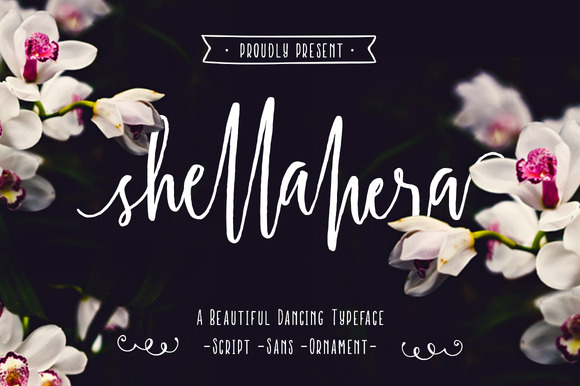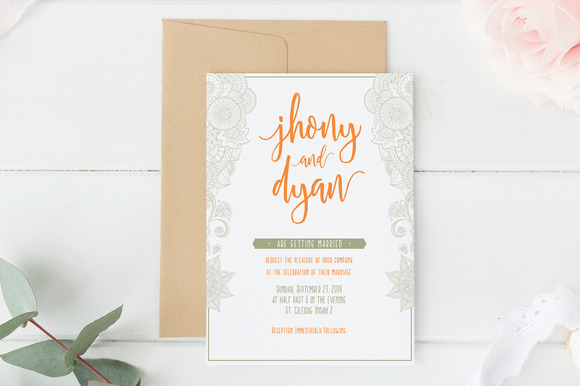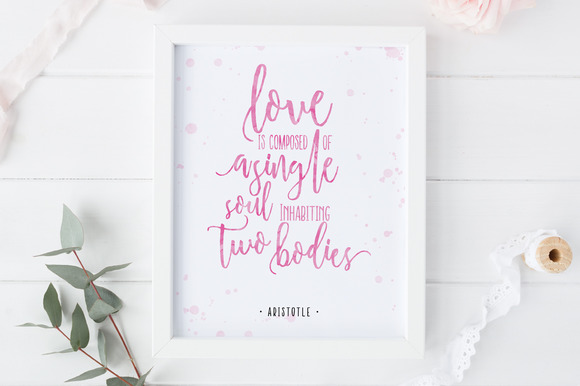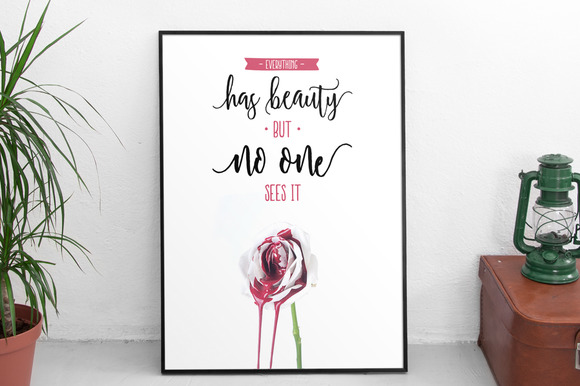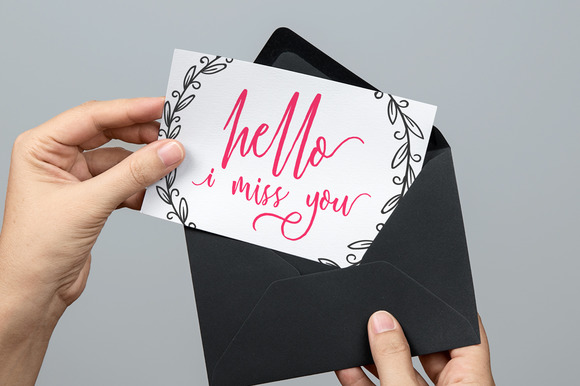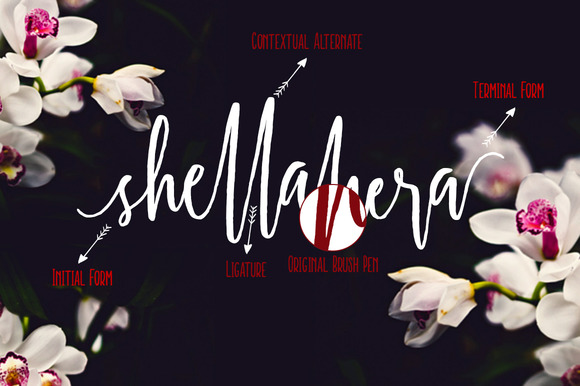
Shellahera Script Font
About Shellahera Script Font
ShellaHera is a handwritten script font. It is made using a original brush pen and scanned with high resolution. It also has a beautiful dancing baseline.